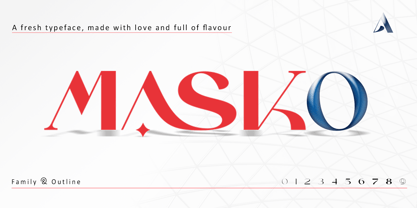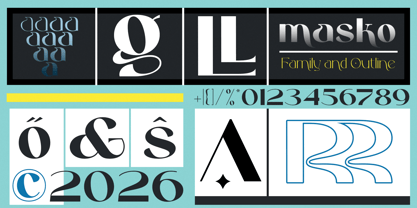
Masko
by Areatype
The Masko Font Family was designed by Ambia and published by Areatype. Masko contains 46 styles and family package options. More about this family
Masko is a very versatile font, Masko uniqueness lies in the harmonious blend of geometric shapes and graceful curved elements,
The package includes 46 fonts offering a range of weights—from light to black—and styles, including both outline ; OpenType features enable typographic elements such as ligatures and multilingual support.
It is an excellent choice for branding, magazines, posters, advertising, print media, packaging, headlines, web design, and more.
Designers: Ambia
Foundry: Areatype